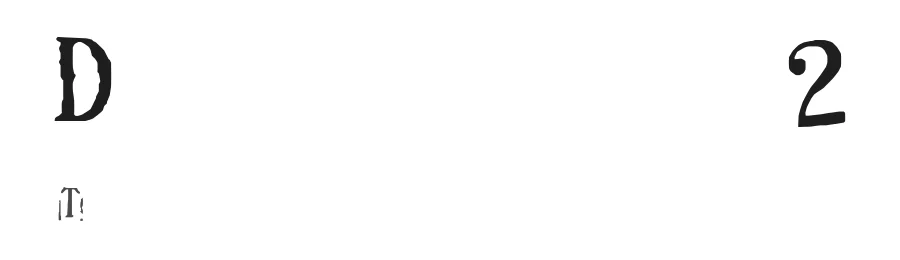
About Stieglitz SP Font
Stieglitz SP is a display font designed by Sasha Pavljenko. It includes 93 glyphs, a bold weight, OTF (CFF) format, and 204 languages. Stieglitz SP is free to download; check the license details on this page before commercial use. Display fonts like Stieglitz SP work best for logos, posters, headlines, and eye-catching social media graphics.
Stieglitz SP Font is a display font that shines as a display or heading face. Pair it with a clean sans-serif or serif font for body text โ the contrast creates a clear hierarchy while the two styles stay balanced and easy to read.
Stieglitz SP Font
Stieglitz SP Font is a display typeface by Sasha Pavljenko, ideal for logos, invitations, branding, and creative projects.